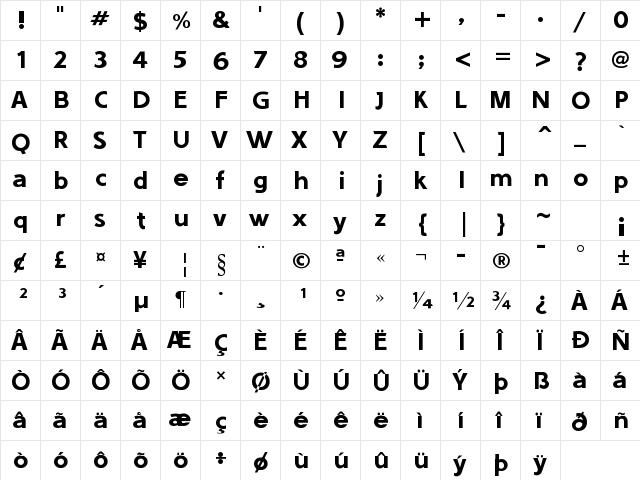
Sounds Good Regular
| Foundry | Galdino Otten |
| Designer | 頇aldino Otten. 2013. All Rights Reserved |
Design Context for Sounds Good Typeface
Sounds Good is a composed and adaptable typeface that performs quietly and consistently across a wide range of design contexts.